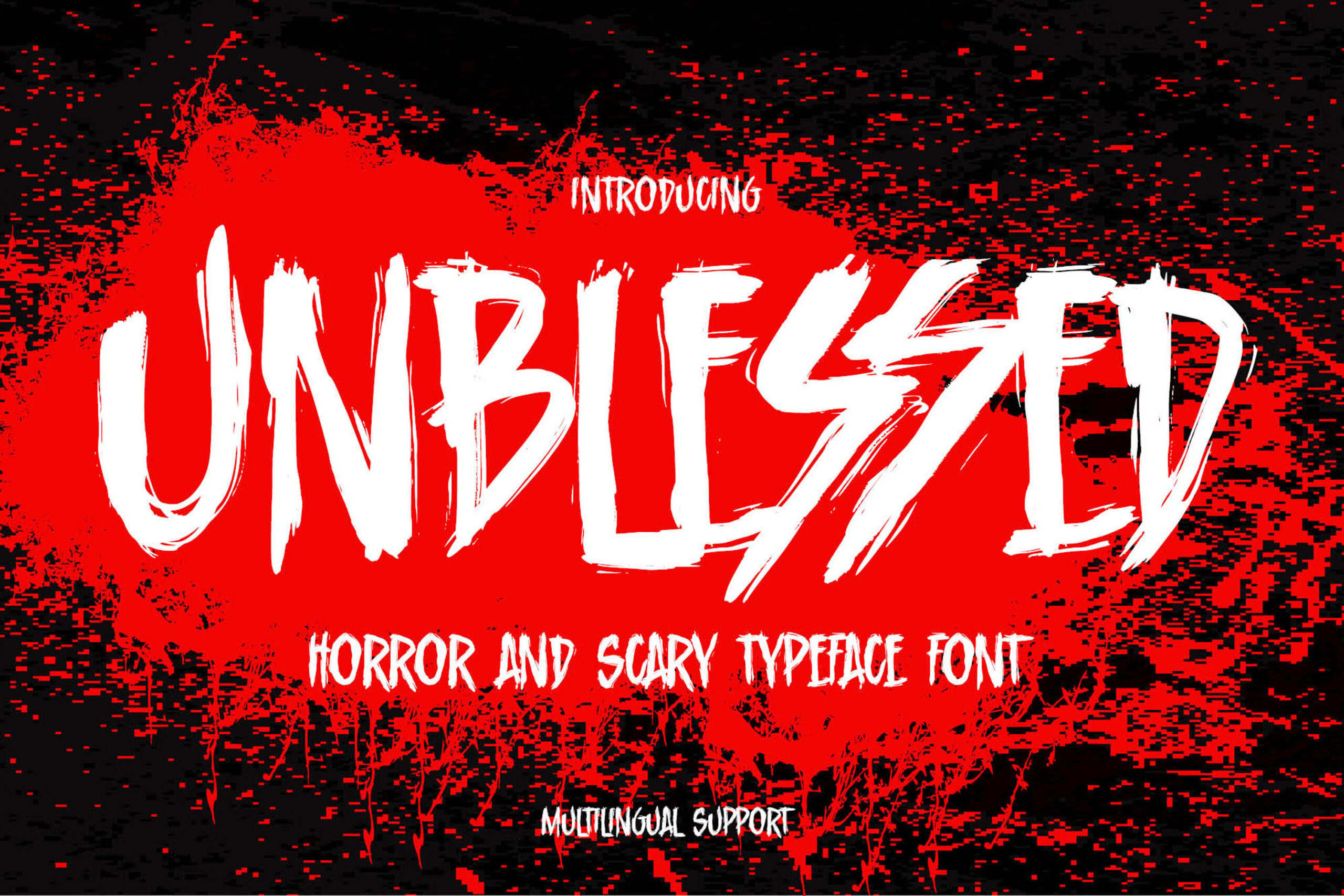
Unblessed – Horror And Scary Typeface Font, strong style and dramatic movement that is written casually and quickly.
The best for poster,project , designs look modern, unique and fun. It’s perfect for labels, quotes, posters, DIY projects, branding, packaging, greeting cards, websites, photography overlays, signs, scrapbooking, tags and so much more! That is why Unblessed has a rough, and cool characteristic more natural look. You can activate Ligatures and Alternates glyphs OpenType panel.